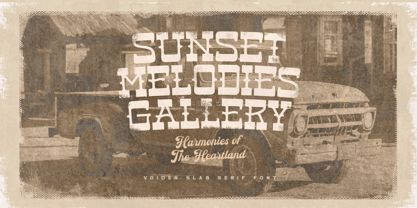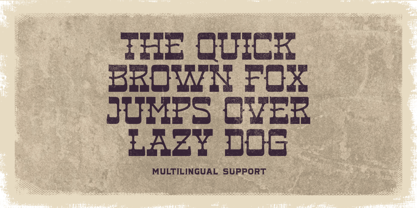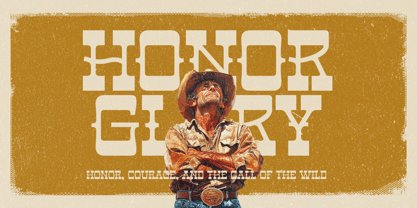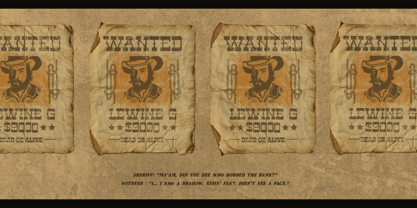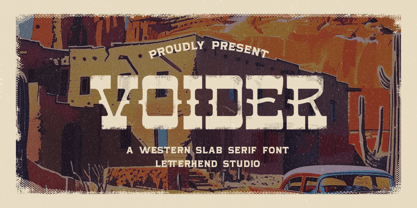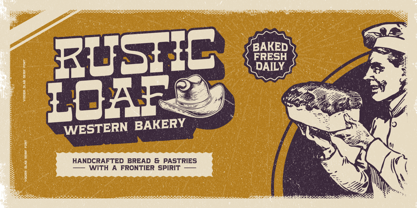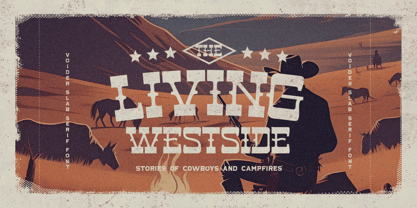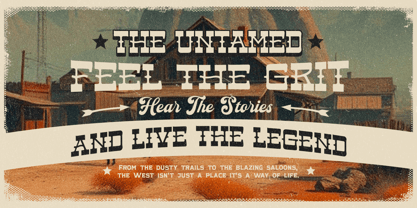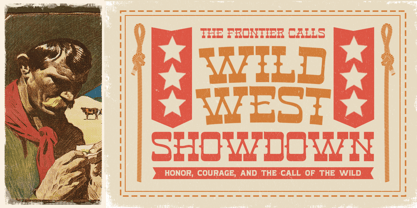
Voider
La familia tipográfica Voider fue diseñada por Hendry Juanda y publicada por Letterhend. Voider contiene 1 estilos. Más información sobre esta familia
Step into the rugged charm of the Wild West with Voider, a bold and versatile slab serif font designed to capture the essence of vintage Americana. Perfect for posters, logos, packaging, and any project that needs a dash of retro adventure, Voider brings character and grit with its distressed details and striking letterforms.
Features :
• Uppercase & lowercase
• Numbers and punctuation
• Alternates Characters
• Multilingual Support